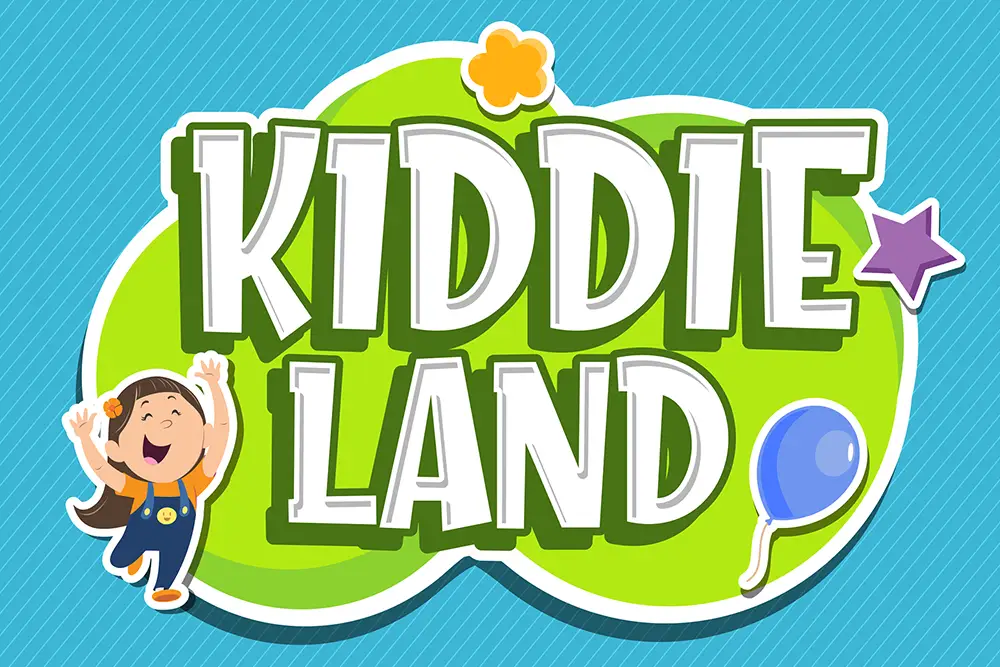
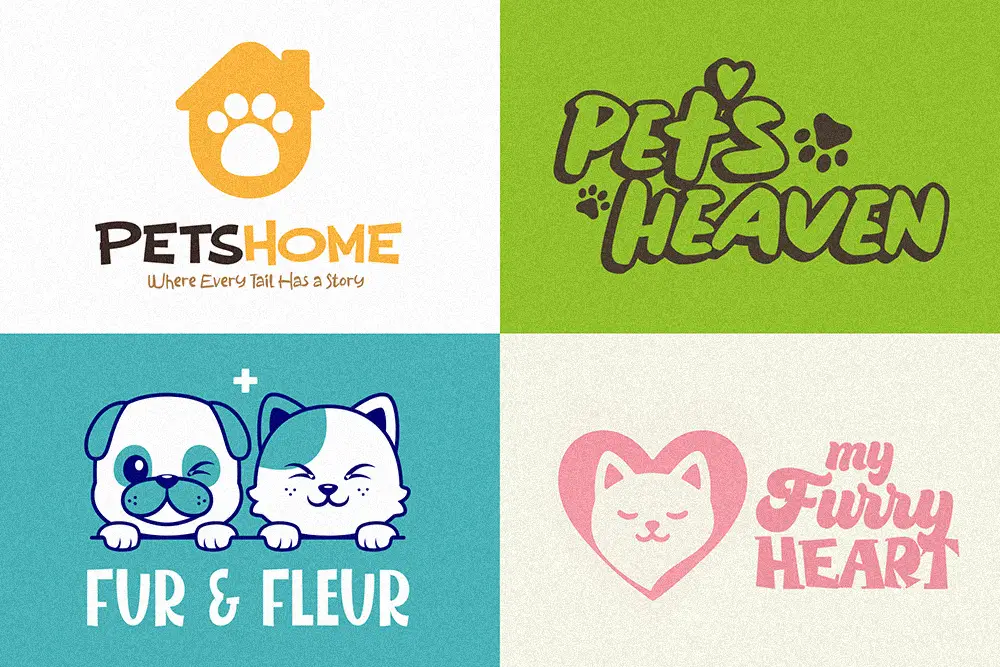
You can tell a good pet shop the moment you see its logo.
It’s warm, friendly, and makes you want to smile — maybe even adopt a new furry friend. That’s the hidden magic of Petshop Branding Fonts: before a single word is spoken, your typography already tells people how to feel — playful, caring, and full of heart.
In 2025, choosing the right Petshop Branding Fonts can make your brand stand out in a sea of sameness. Whether you’re opening a small grooming salon or building a pet supply brand, the right typography becomes your voice — playful, caring, and full of personality.
Typography isn’t just decoration — it’s psychology in letters. The best Petshop Branding Fonts create trust, comfort, and connection. Think about it: customers walking by your sign might have only two seconds to decide if your shop feels friendly or sterile.
Rounded, comic-inspired fonts naturally evoke warmth and friendliness. According to 99designs, soft curves and playful shapes trigger emotions of safety and happiness — perfect for any pet-related business.
That’s why brands that sell love (and fur!) need fonts that wag their tails. Fonts like Hero Bump or Grow Boys instantly tell visitors, “We’re not a corporate chain — we care about your pets.”
A logo’s font communicates as much as its color palette. According to design expert Erik Spiekermann, “Typography is not just choosing a typeface, it’s choosing a tone of voice.”
Petshop Branding Fonts need to feel approachable but still professional. That balance is what makes your brand memorable — something families and kids can connect to instantly.
Rounded corners, bold strokes, and comic inspiration make fonts like Moris Palm or Bakso Tahu ideal for cheerful logos. They give off “fun, but trustworthy” vibes — perfect for a brand that handles something as emotional as pets.
“Design is intelligence made visible.” — Alina Wheeler
Your font choice isn’t just about looks. It’s how your intelligence, empathy, and joy become visible to the world.
Choosing fonts for petshop branding isn’t about randomness — it’s about emotion and storytelling. Let’s explore 15 playful fonts that bring your design to life.
Hero Bump brings the classic cartoon bounce back. Perfect for logos that want to shout “fun!” with thick outlines and soft shadows — ideal for packaging treats or playful signage.
Grow Boys feels cheerful and optimistic, perfect for pet grooming or puppy daycare brands. Its rounded letters give off an instant sense of friendliness.
When you need that hand-drawn, human touch, Moris Palm shines. It’s great for boutique pet stores that want an artisanal, cozy vibe.
Bakso Tahu brings Indonesian flair — playful, local, and warm. It’s quirky but readable, making it perfect for packaging snacks or treats.
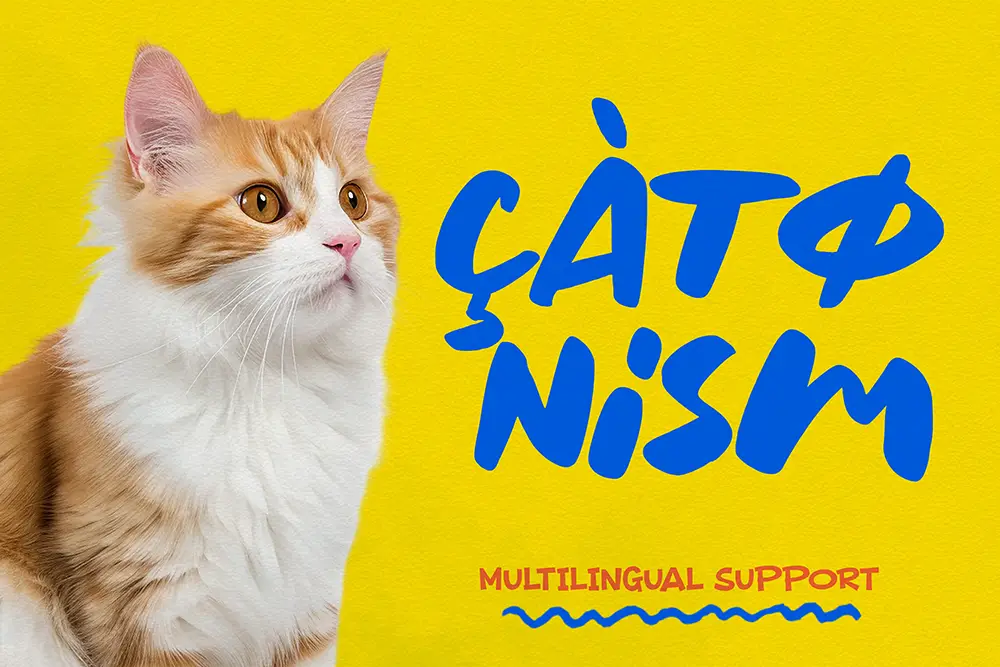
Need something energetic? Spark Boys jumps off the page — full of motion and spark, great for youth-oriented or sporty pet brands.
For pet brands that capture energy and movement, Run Child mirrors the joy of running dogs or playful kittens. Use it for taglines or animated logos.
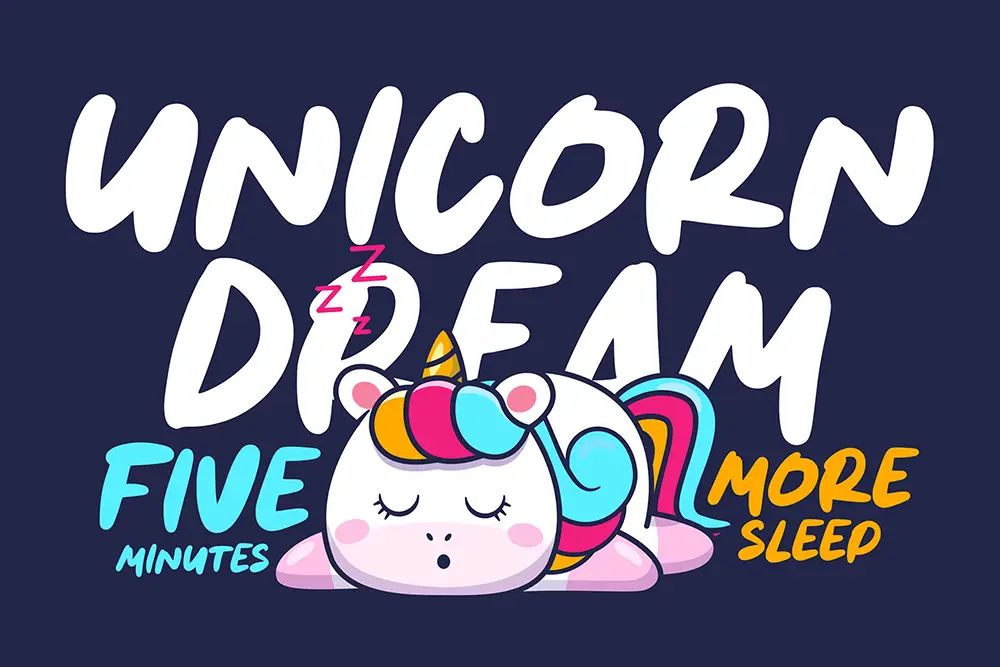
Skiddy Toons looks like it came straight out of Saturday morning cartoons. It’s nostalgic, colorful, and works beautifully for toy or accessories branding.
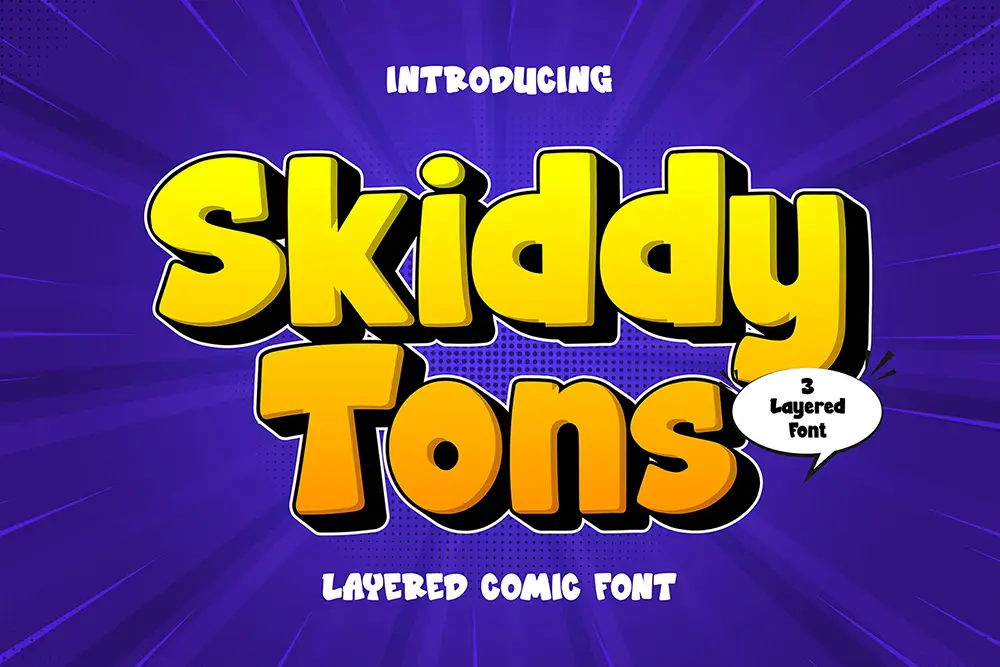
Kids Zone is bold and chunky — the kind of type you’d see on a pet adoption event banner. It’s fun, inclusive, and big on readability.
Soft, round, and delightfully simple, Playkidz communicates warmth and trust. Perfect for family-oriented petshops or social campaigns promoting adoption.
Jack Poter mixes comic and retro superhero energy. If your brand focuses on strong, bold personality — this font adds that “heroic” touch.
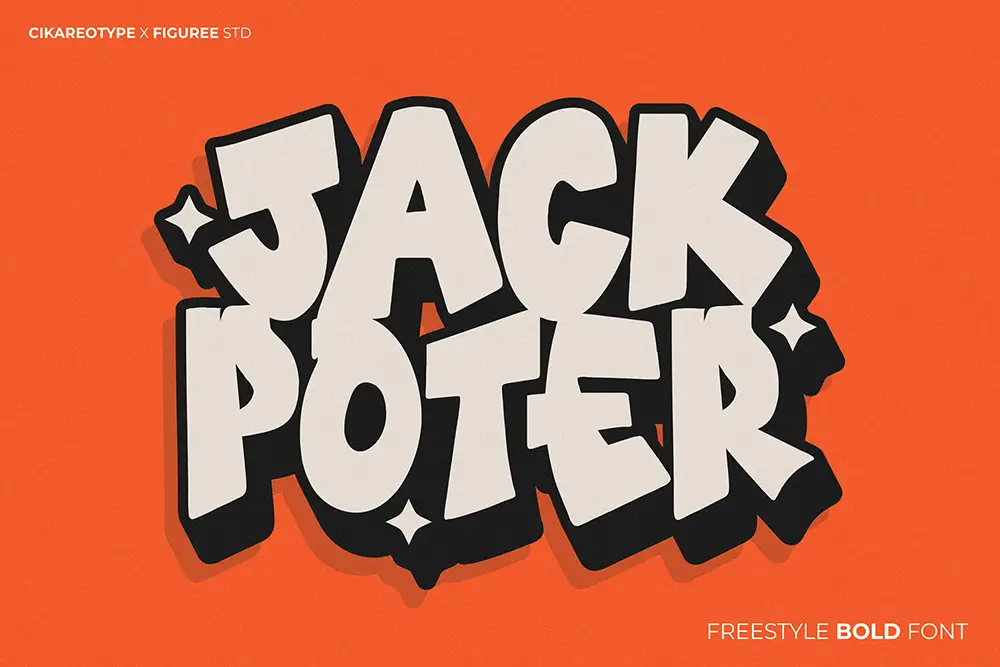
Kiddie Land feels like a hug in letterform — friendly, soft, and wholesome. It’s perfect for veterinary clinics or grooming studios that target families.
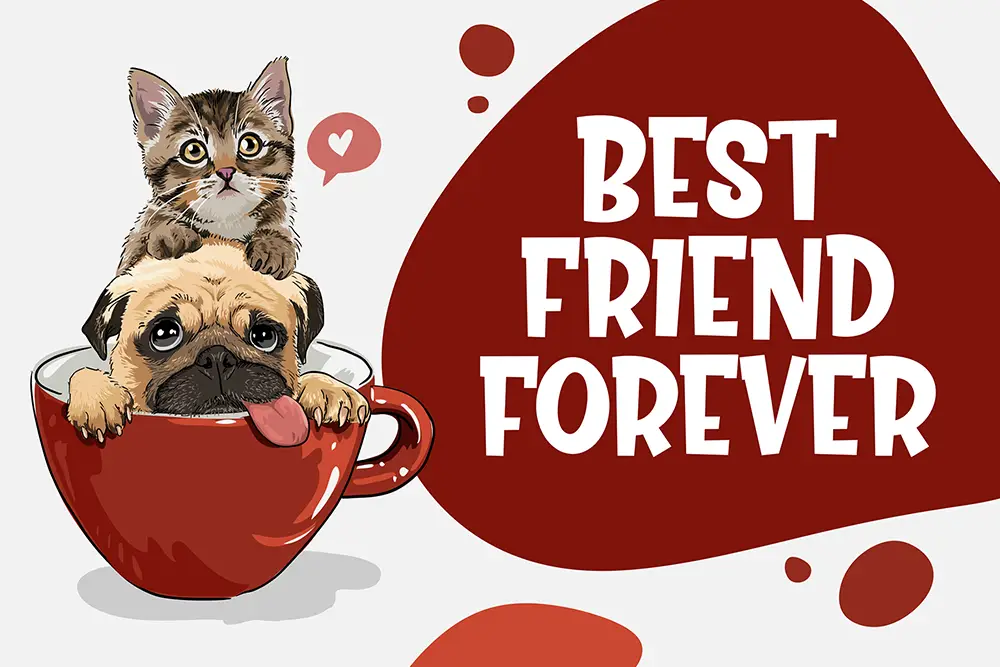
Retro never dies. Komix Eighties gives vintage comic flair with a nostalgic pop-culture twist — great for merch or T-shirt graphics.
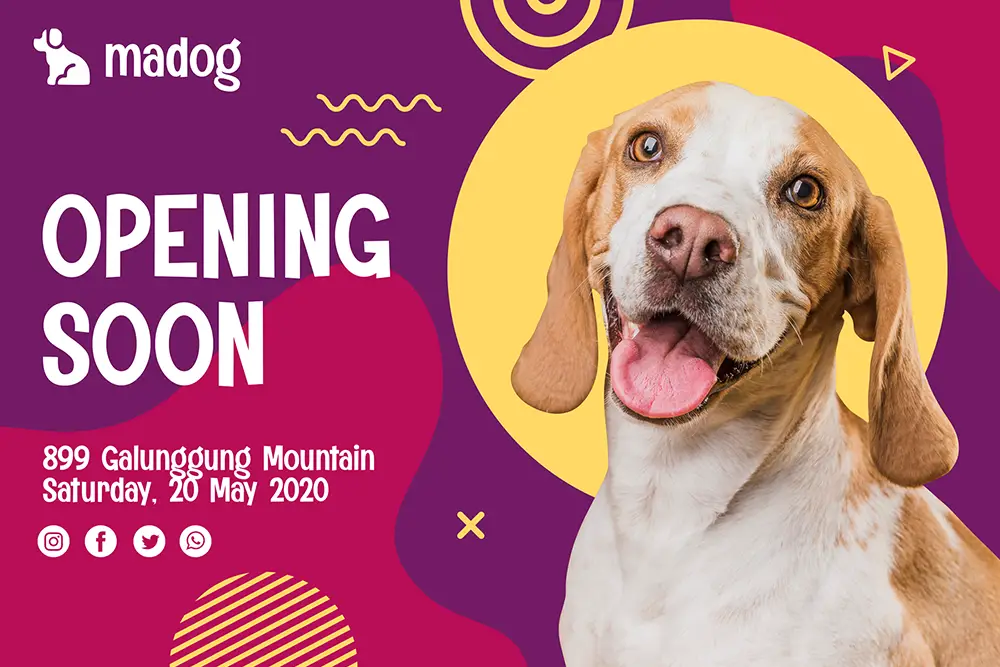
Komica Brought adds a handmade, sketch-like energy. It’s the ideal bridge between comic and crafted — perfect for boutique pet branding.
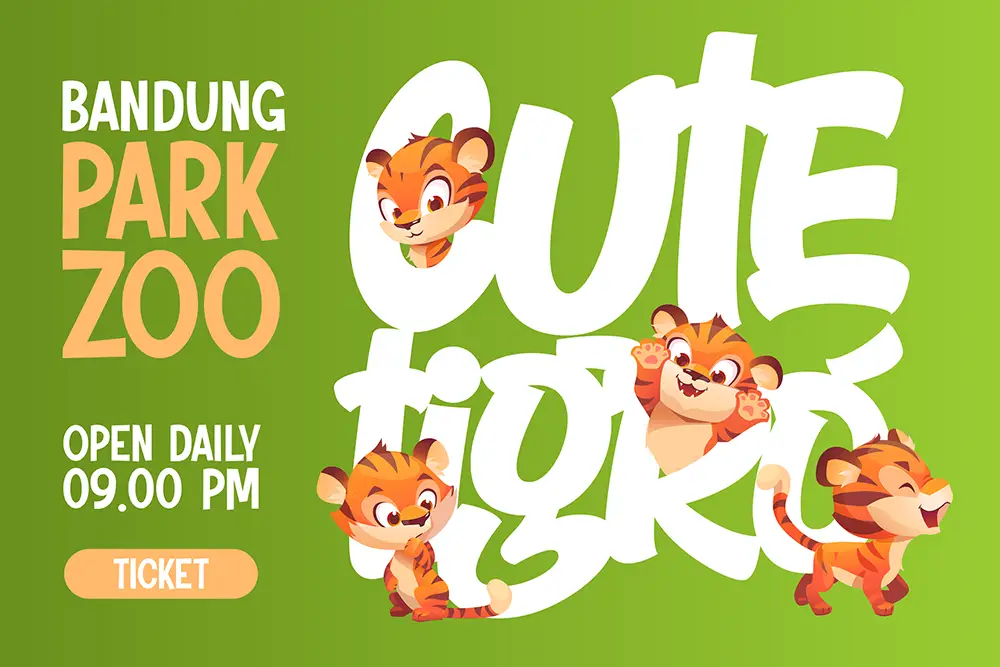
Kidos Marker brings the spontaneous feel of marker doodles. It’s imperfectly perfect — ideal for modern, authentic pet brands that value approachability.
Hello Arsenio finishes our list on a softer note — it’s handwritten, smooth, and full of warmth, great for heartfelt campaigns or loyalty cards.
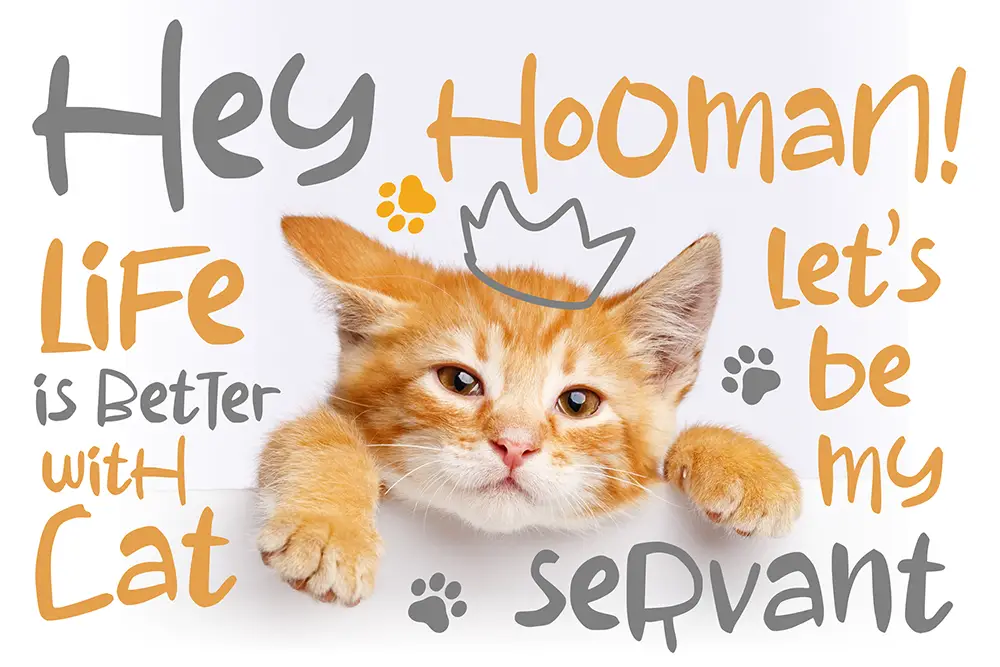
When designing a petshop logo, mix playful display fonts for your main logo and simple sans-serif for body text or tagline. This keeps your design fun but readable.
Your petshop’s story deserves a voice as joyful as the pets you serve. Choose fonts that smile, fonts that bark, fonts that love. Because when your typography feels alive — so does your brand.